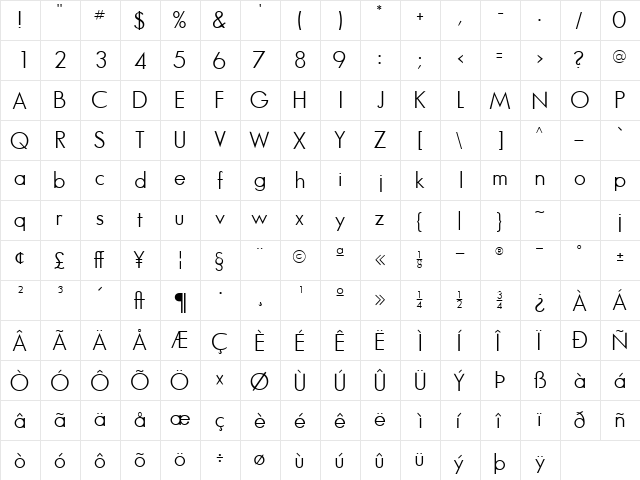
BouganBookSSK Regular Font Preview
BouganBookSSK Regular
BouganBookSSK Regular Font Details
Design Context for BouganBookSSK Typeface
BouganBookSSK is a composed and adaptable typeface that performs quietly and consistently across a wide range of design contexts.